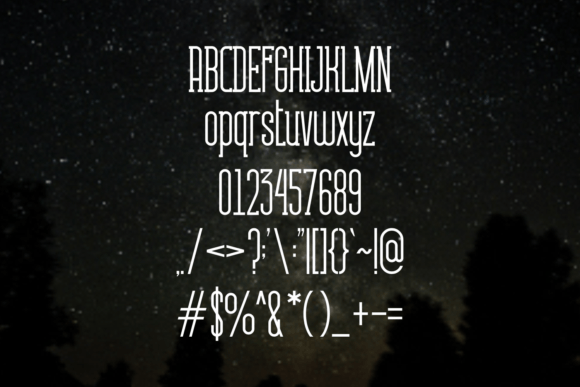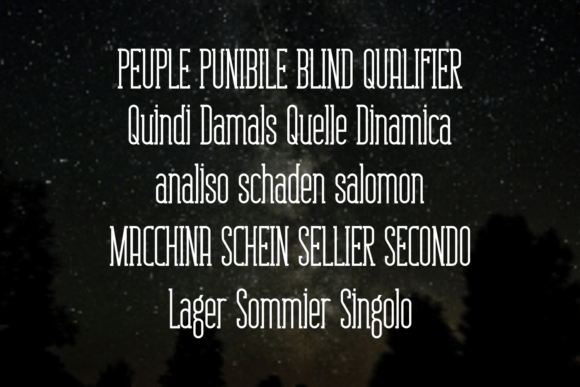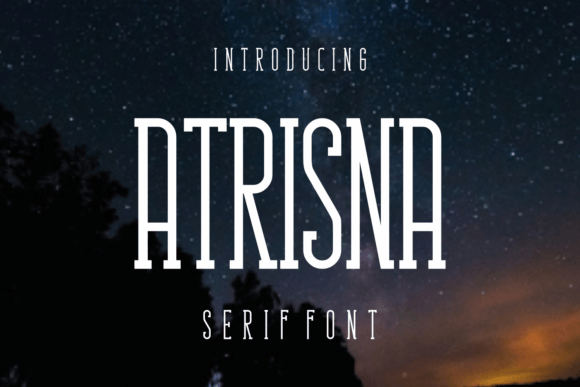
Atrisna Font: Elevate Your Design with Elegance and Sophistication
In the world of typography, a font can make or break a design. For designers and crafters, finding the perfect font that embodies elegance, sophistication, and versatility is a constant quest. This is where Atrisna Font comes into play – a tall and impeccable serif font with slab serif accents that is perfectly suited for both print and screen applications.
The Atrisna Font Advantage
Atrisna Font boasts a unique blend of classic serif and modern slab serif elements, making it an exceptional choice for a wide range of design projects. Its tall and slender structure exudes elegance, while the slab serif accents add a touch of ruggedness and sophistication. This font is perfect for designers looking to create stunning branding, name cards, posters, logos, magazines, covers, banners, t-shirts, headers, or even large-scale artwork.
Key Features of Atrisna Font
- Impeccable Serif Design: Atrisna Font features a beautifully crafted serif design that is both classic and timeless.
- Slab Serif Accents: The addition of slab serif accents gives Atrisna Font a modern twist, setting it apart from traditional serif fonts.
- Versatile: Atrisna Font is designed to work seamlessly across various mediums, including print and screen.
- Elegant and Sophisticated: The font’s tall and slender structure exudes elegance and sophistication, making it perfect for high-end designs.
Use Cases for Atrisna Font
Atrisna Font is an incredibly versatile font that can be used in a variety of design projects, including:
- Branding: Create a lasting impression with Atrisna Font, perfect for logos, business cards, and letterheads.
- Print Design: Use Atrisna Font in posters, magazines, covers, and banners to add a touch of elegance and sophistication.
- Digital Design: Atrisna Font works seamlessly on screen, making it perfect for website headers, social media graphics, and digital advertising.
- Merchandise: Add a touch of style to your merchandise with Atrisna Font, perfect for t-shirts, mugs, and other promotional items.
- Artwork: Atrisna Font is also suitable for large-scale artwork, providing a beautiful and elegant base for your creative projects.
Why Choose Atrisna Font?
With so many fonts available, why choose Atrisna Font? Here are a few compelling reasons:
- Unique Design: Atrisna Font offers a unique blend of classic serif and modern slab serif elements, making it stand out from other fonts.
- High-Quality: Atrisna Font is crafted with attention to detail, ensuring a high-quality design that will elevate your projects.
- Versatile: Atrisna Font can be used across various mediums and design projects, making it a valuable addition to your font library.
In conclusion, Atrisna Font is an exceptional serif font with slab serif accents that is perfectly suited for designers and crafters looking to elevate their designs. Its unique blend of classic and modern elements, versatility, and high-quality design make it an excellent choice for a wide range of design projects. Whether you’re working on branding, print design, digital design, or artwork, Atrisna Font is sure to impress.
Get Ready to Elevate Your Designs with Atrisna Font